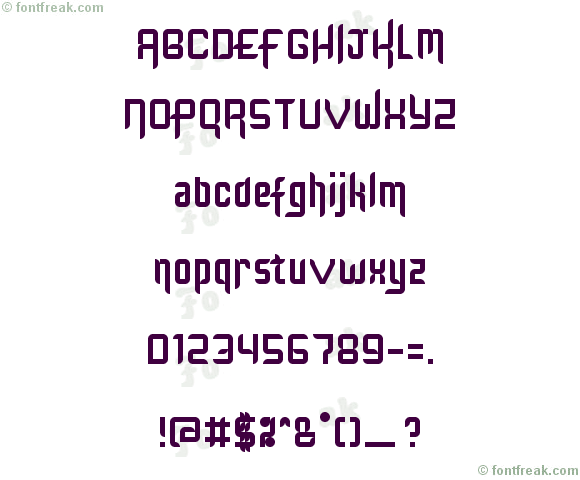
Kinglify Regular
About Kinglify Regular
Kinglify Regular, designed by Andrew McCluskey, is a distinctive display font that captures attention with its unique visual style. This font features bold, angular letterforms that evoke a sense of modernity and creativity. With a medium stroke weight and minimal contrast, Kinglify Regular is both striking and legible, making it an excellent choice for various design projects. The spacing between characters is thoughtfully considered, allowing for clarity while maintaining an artistic flair. The absence of excessive decorative elements ensures that the font remains versatile, adaptable to multiple contexts.
Ideal for creative applications, Kinglify Regular shines in settings such as movie posters, where its boldness can convey excitement and drama. It's also a great choice for branding small businesses, particularly those in the arts and entertainment sectors, where a modern aesthetic is essential. Restaurant menus can benefit from its unique character, providing an engaging visual experience that sets the establishment apart. Additionally, Kinglify Regular is perfect for event flyers and promotional materials, adding a touch of sophistication while remaining accessible.
What sets Kinglify Regular apart is its ability to balance artistic expression with functionality. This font not only stands out visually but also serves a practical purpose across a wide array of applications. With Kinglify Regular font free download, you can explore its potential and elevate your design projects with a unique typographic voice that resonates with audiences.